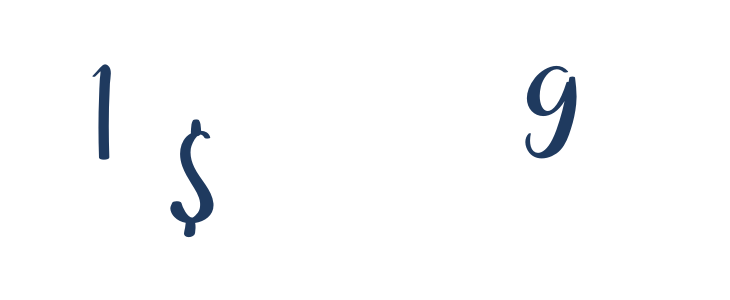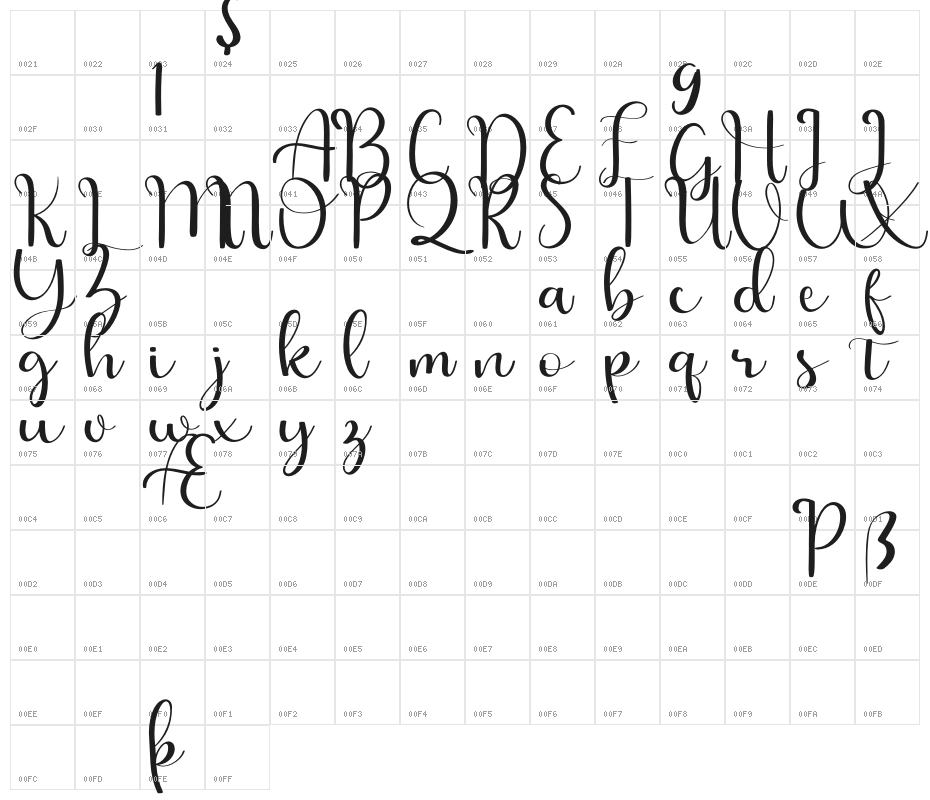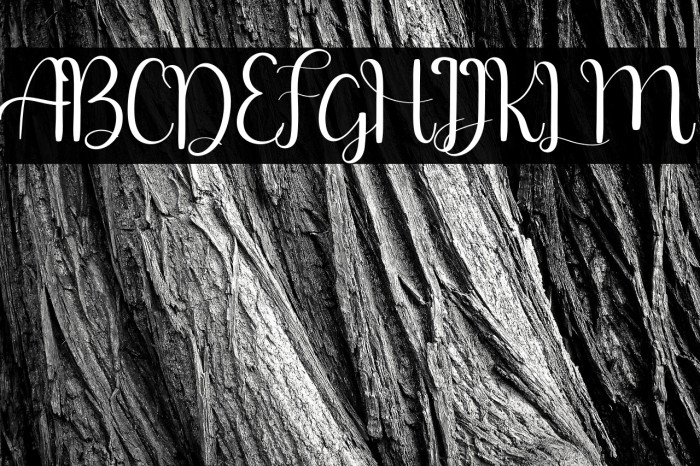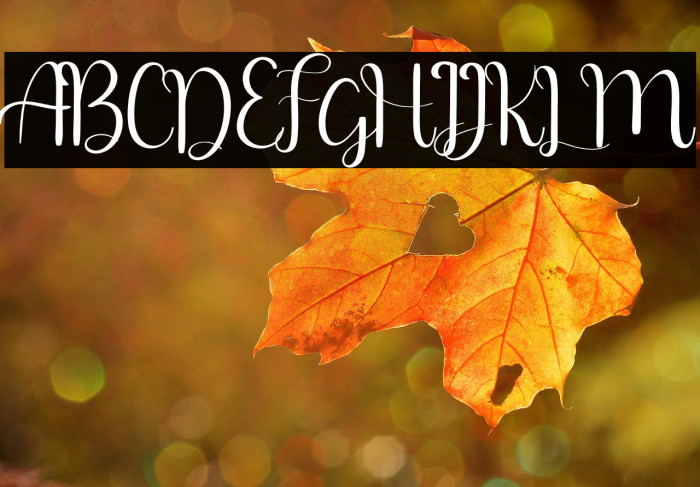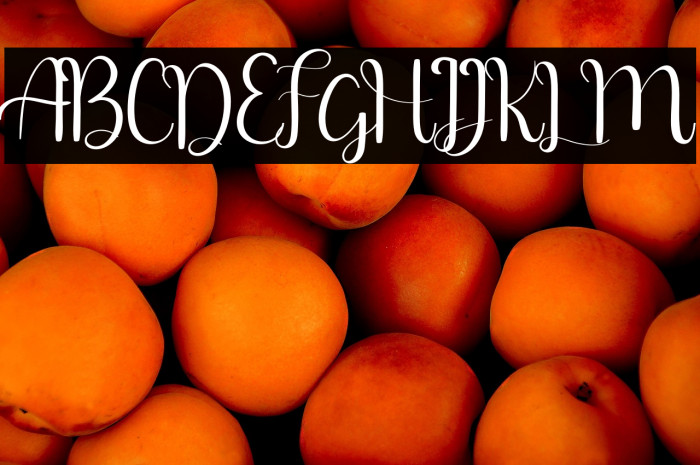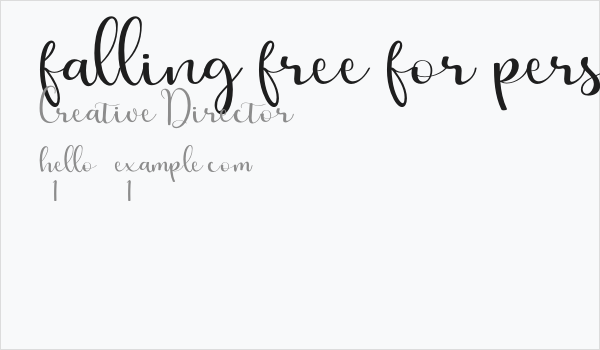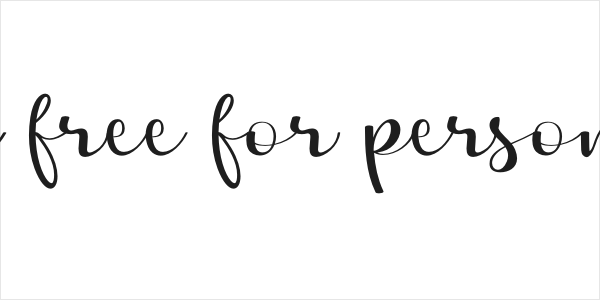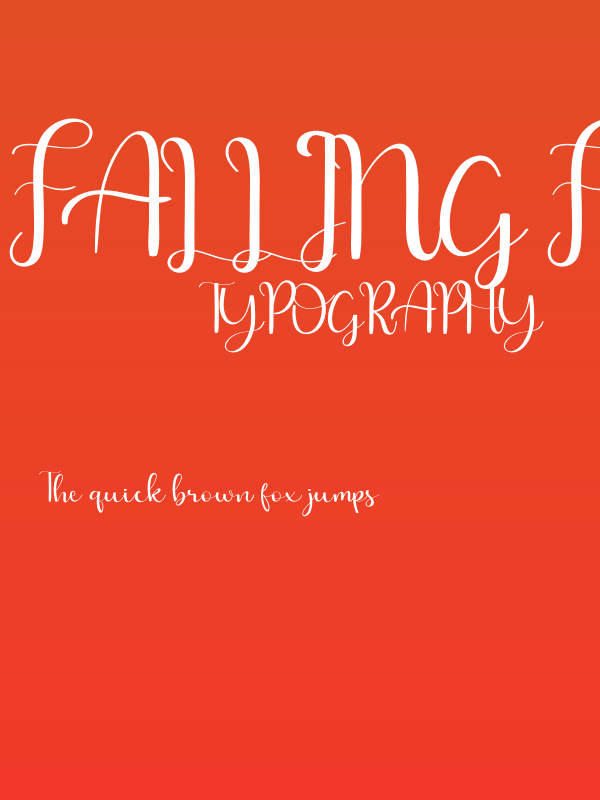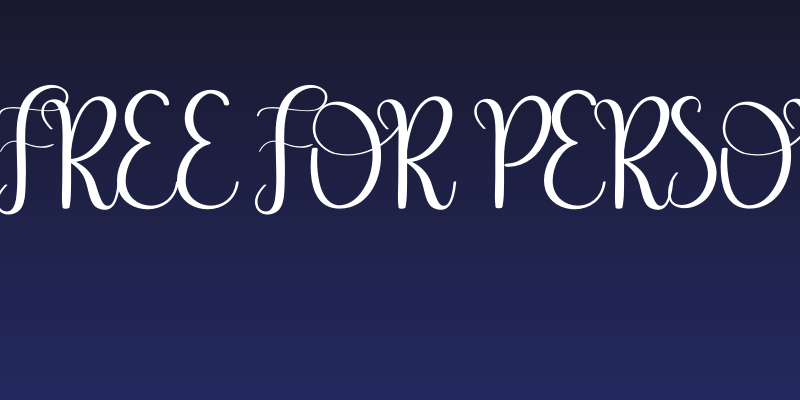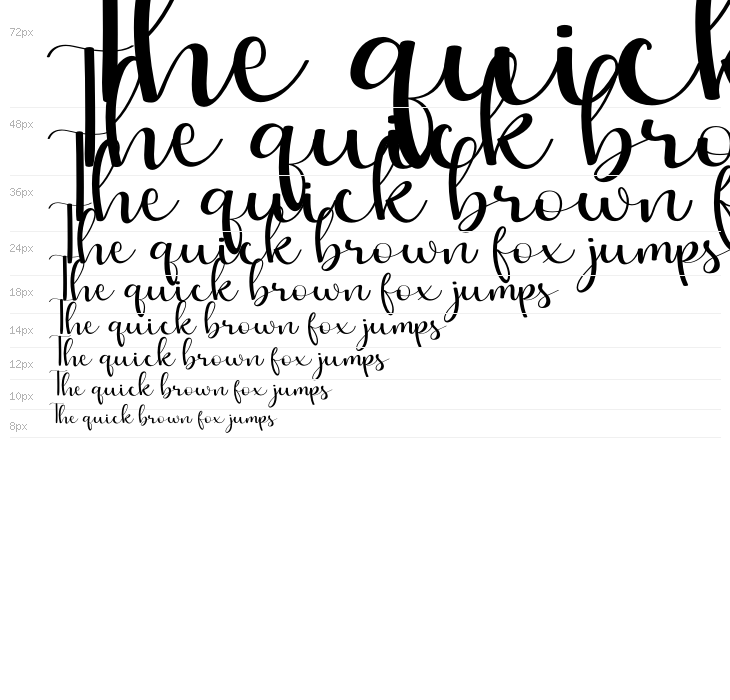
falling free for personal use Font
falling free for personal use Description
This font features an elegant and flowing script style, characterized by its smooth, cursive letterforms that convey a sense of sophistication and grace. The uppercase letters exhibit a distinct flair with extended loops and swashes, while the lowercase letters maintain a consistent fluidity that enhances readability. The numbers and special characters are designed to complement the overall aesthetic, maintaining the same graceful curves and stylish appearance. This font is ideal for projects that require a touch of elegance and personal expression.
| Proposed Projects | Wedding invitations, greeting cards, branding, and logo design. |